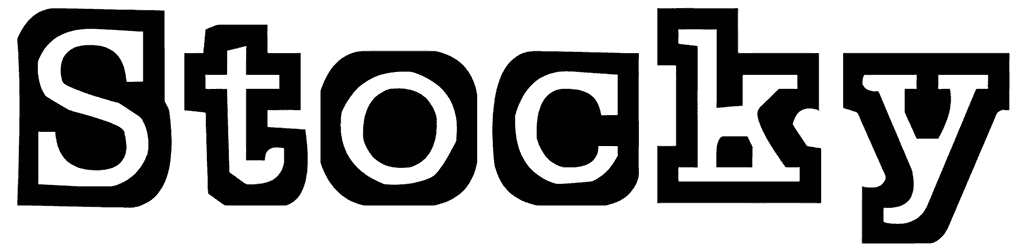
Stocky Font
This is a unique offer to decorate your upcoming project with a retro and technical vibe. Stocky is cut-out font with bold and designed serif letters. Give it a try and set this memorable font on your creative designs, for instance, web graphics, flyers, ads, album covers, and so forth.